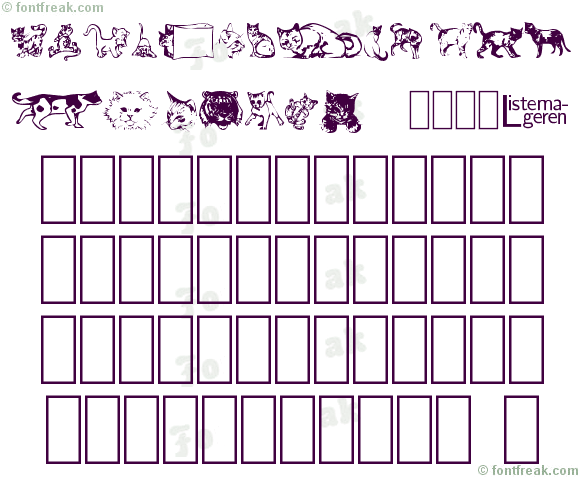
Dingbat Cats 2
Dingbat Cats 2 by Listemageren is a delightful dingbat font that combines whimsical charm with playful illustrations of cats. Released in 1997, this font features a variety of feline-themed icons that are perfect for any cat lover or creative project. The visual characteristics include a consistent stroke weight that enhances clarity, making the illustrations easy to recognize and engaging. The spacing between the icons is well-balanced, allowing for seamless integration into various designs. Each cat illustration boasts unique details, showcasing different poses and expressions that add personality and flair.
This font is ideal for a range of creative applications. Graphic designers can use Dingbat Cats 2 for designing greeting cards, where the charming cat illustrations can evoke warmth and affection. Small business owners in the pet industry might find it particularly useful for promotional materials, such as flyers or social media posts, to attract fellow cat enthusiasts. Content creators can incorporate these dingbats into blog posts or websites focused on pets, adding visual interest to their content. Additionally, the font is suitable for children’s book illustrations or educational materials, where engaging visuals can help capture a young audience's attention.
The target audience for Dingbat Cats 2 includes graphic designers, small business owners, and content creators who are looking to add a unique touch to their projects. This font stands out due to its playful and versatile nature, making it not just a decorative element but a source of inspiration for creativity. With the availability of a “Dingbat Cats 2 font free download,” it offers accessibility for anyone looking to enhance their designs with delightful cat illustrations, ensuring that every project is infused with a sense of fun and creativity.